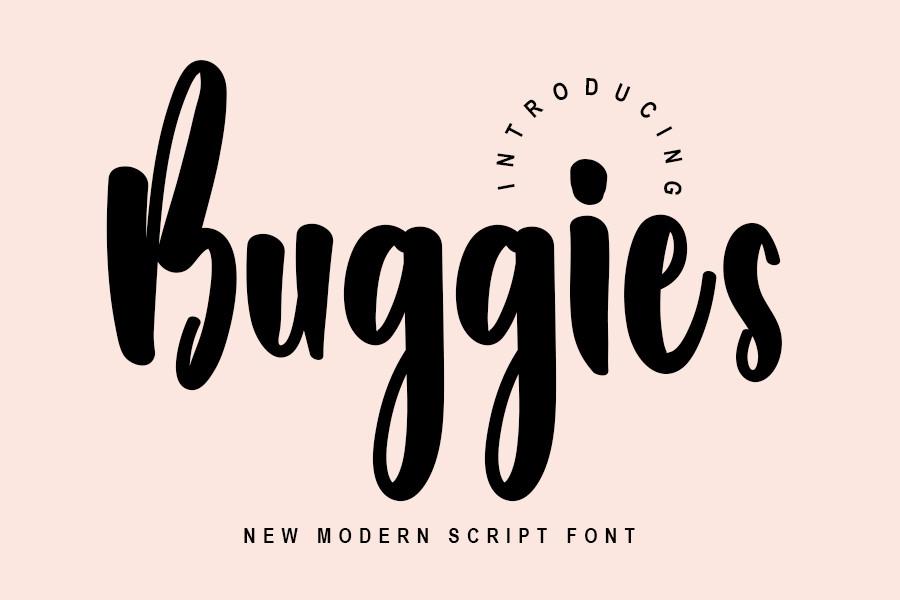
Buggies Font Description
Buggies is an enchanting handwritten font. This versatile typeface has a wide spectrum of applications ranging from greeting cards to headlines and is guaranteed to add a romantic feel to your next project. Don’t miss out on the chance to make your creative designs the best they can be!